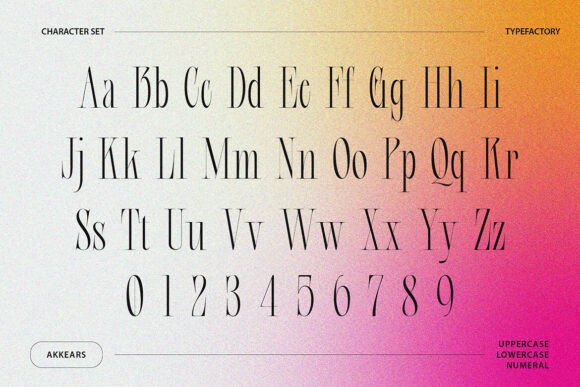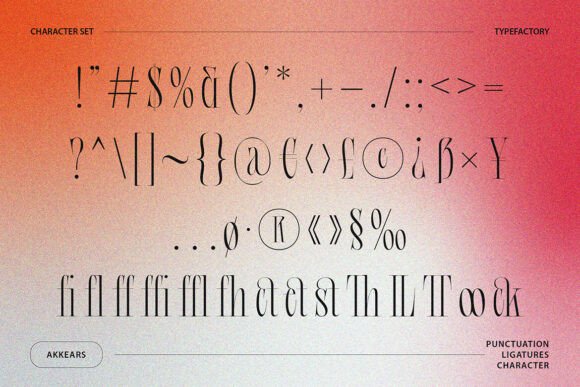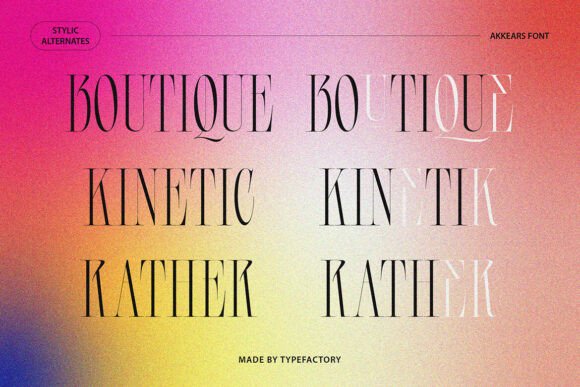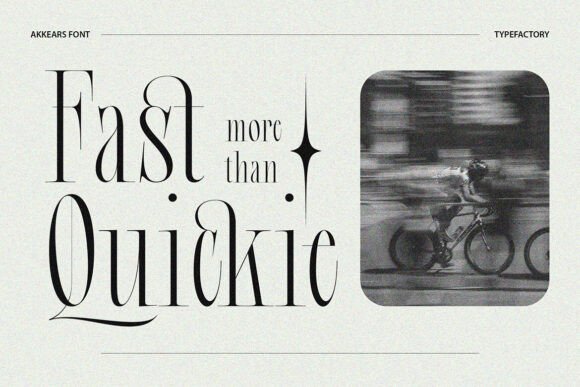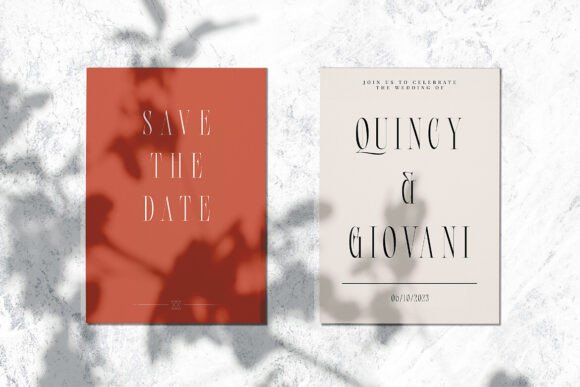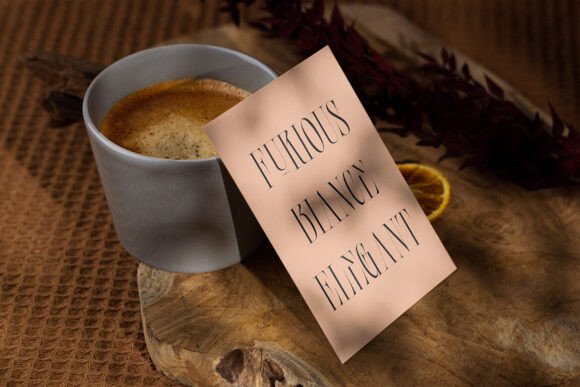
Akkears Font: Elevate Your Design with Elegance and Sophistication
In the world of typography, a well-crafted font can make all the difference in elevating a design from ordinary to extraordinary. Introducing Akkears, a unique serif display typeface that seamlessly blends classic serif elegance with contemporary design elements. This stunning typeface is perfect for designers and crafters looking to add a touch of luxury and sophistication to their projects.
The Perfect Balance of Classic and Modern
Akkears boasts refined curves and sophisticated serifs, creating a harmonious balance that exudes a sense of timelessness. The classic serif elements provide a sense of tradition and heritage, while the contemporary design elements inject a modern twist, making it perfect for upscale branding, editorial layouts, and high-end packaging.
One of the standout features of Akkears is its versatility. Its distinctive character and exceptional readability make it an ideal choice for a wide range of applications, from headlines and prominent text to logos and branding materials. Whether you’re working on a luxury brand campaign, a high-end product packaging project, or a stylish editorial layout, Akkears is the perfect choice.
What Makes Akkears Special?
- Unique Serif Design: Akkears features a distinctive serif design that sets it apart from other typefaces. The serifs are sophisticated and refined, adding a touch of elegance to any project.
- Exceptional Readability: Despite its elegant design, Akkears remains highly readable, even at smaller sizes. This makes it perfect for use in a variety of applications, from body text to headlines.
- Versatility: Akkears is an incredibly versatile typeface, suitable for use in a wide range of projects, from luxury branding to editorial layouts and high-end packaging.
- Timeless yet Modern: Akkears strikes the perfect balance between timelessness and modernity, making it an excellent choice for designers looking to create a lasting impression.
Why Choose Akkears?
With so many typefaces available, why choose Akkears? The answer lies in its unique blend of classic elegance and contemporary design elements. Akkears offers a level of sophistication and refinement that’s hard to find in other typefaces. Its exceptional readability and versatility make it an excellent choice for designers looking to elevate their projects.
Using Akkears in Your Design Projects
So, how can you use Akkears in your design projects? Here are a few ideas to get you started:
- Branding and Logos: Use Akkears to create stunning logos and branding materials that exude luxury and sophistication.
- Editorial Layouts: Akkears is perfect for use in editorial layouts, such as magazines, newspapers, and books.
- Packaging Design: Add a touch of elegance to your packaging design with Akkears, perfect for high-end products and luxury brands.
- Headlines and Prominent Text: Use Akkears to create eye-catching headlines and prominent text that demands attention.
In conclusion, Akkears is a truly unique serif display typeface that offers a perfect blend of classic elegance and contemporary design elements. Its refined curves, sophisticated serifs, and exceptional readability make it an excellent choice for designers and crafters looking to elevate their projects. Whether you’re working on a luxury brand campaign, a high-end product packaging project, or a stylish editorial layout, Akkears is the perfect choice. So why wait? Discover the power of Akkears and take your design projects to the next level.